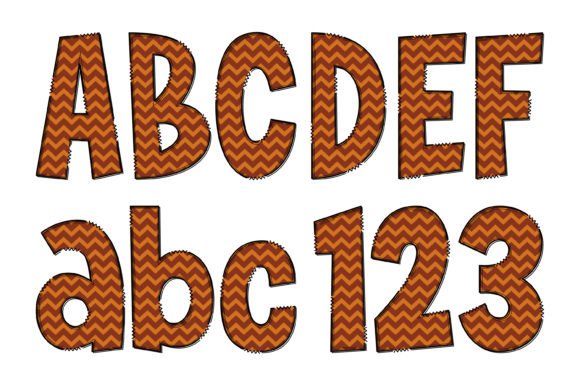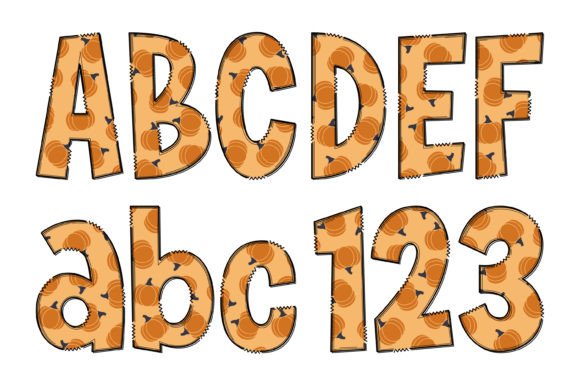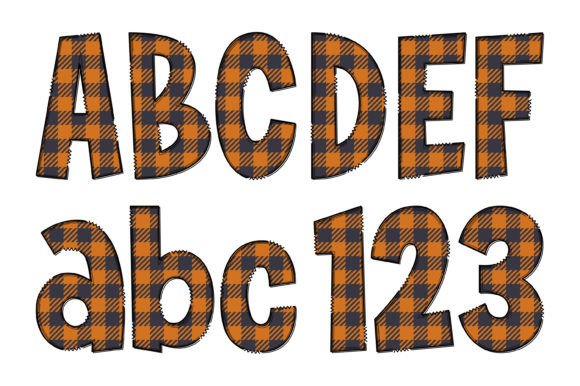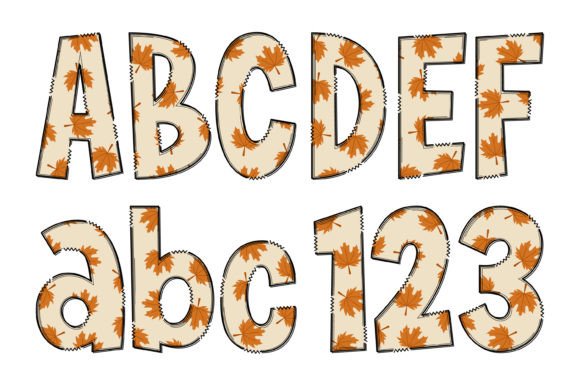
Introducing the Hello Fall Collection Font: A Delightful Celebration of Autumn
As the seasons change and the air grows crisper, the vibrant colors of autumn take center stage. For designers and crafters looking to infuse their projects with the warmth and whimsy of fall, the Hello Fall Collection Font is a perfect choice. This delightful font collection is a charming and playful way to celebrate the arrival of autumn in your designs.
A Colorful and Whimsical Design
The Hello Fall Collection Font is a set of colorful, hand-designed fonts that bring the magic of autumn to life. Each letter in the collection is adorned with colorful leaves, pumpkins, and other fall-themed elements, making it a unique and eye-catching addition to any design. The fonts are carefully crafted to evoke the joyful spirit of the season, with a playful and whimsical touch that’s sure to delight.
Whether you’re a professional designer or a crafter looking for a special touch, the Hello Fall Collection Font is perfect for a wide range of projects. Use it to create:
- Autumn-themed invitations and greeting cards
- Seasonal posters and flyers
- Fall-inspired crafts, such as scrapbooking and DIY decorations
Key Features of the Hello Fall Collection Font
The Hello Fall Collection Font offers a range of features that make it a standout choice for designers and crafters. Some of the key features include:
- Delightful and vibrant color schemes that evoke the spirit of autumn
- Hand-designed letters and characters, each adorned with fall-themed elements
- Playful and whimsical design that’s perfect for adding a touch of cheer to your designs
Why Choose the Hello Fall Collection Font?
With so many fonts to choose from, why select the Hello Fall Collection Font for your autumn-themed designs? Here are just a few reasons:
- Unique and eye-catching design: The Hello Fall Collection Font is a one-of-a-kind design that’s sure to stand out in your designs.
- Versatile: The font can be used for a wide range of projects, from invitations and posters to crafts and social media graphics.
- Seasonal charm: The font captures the joyful spirit of autumn, making it perfect for seasonal designs.